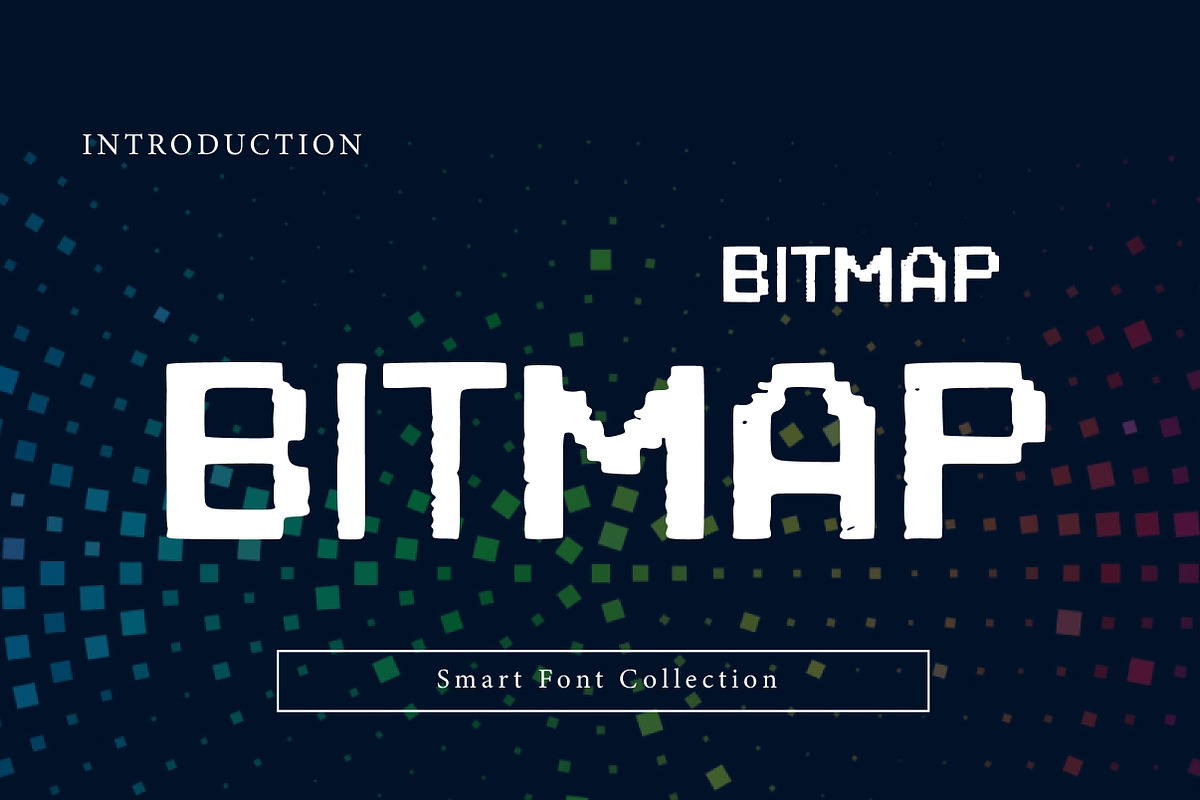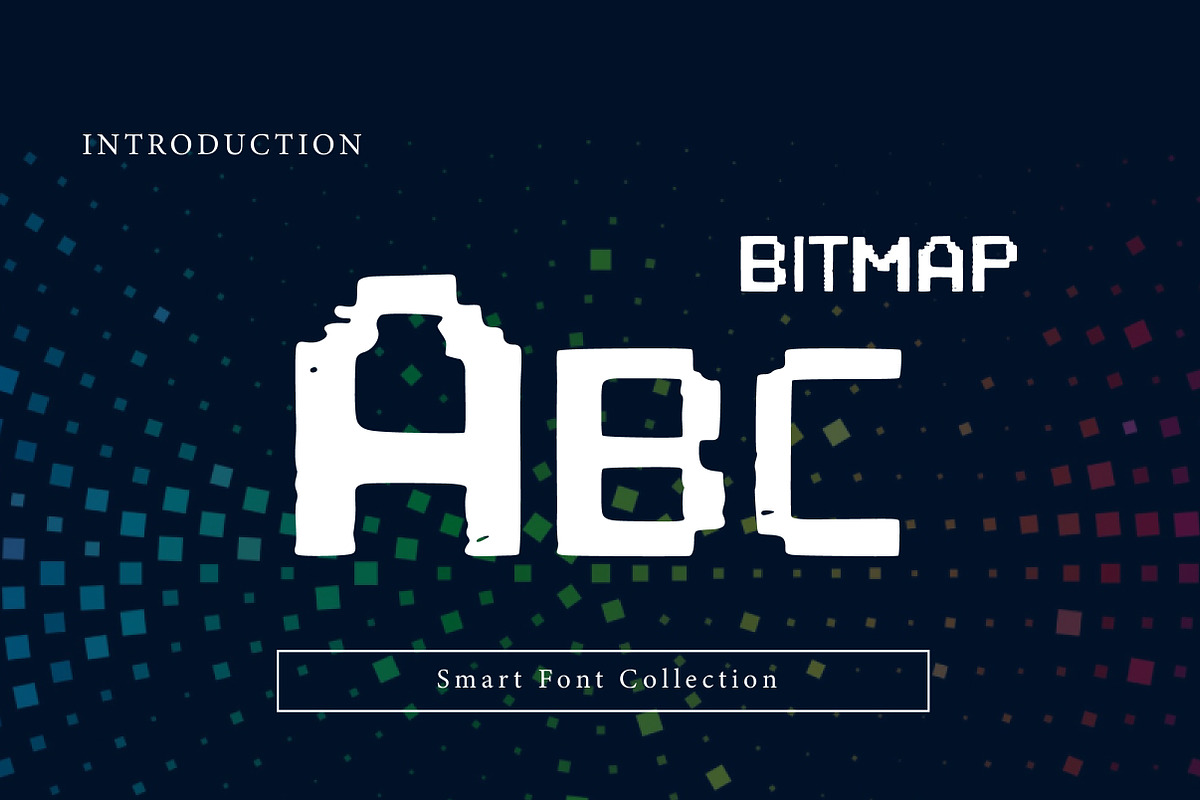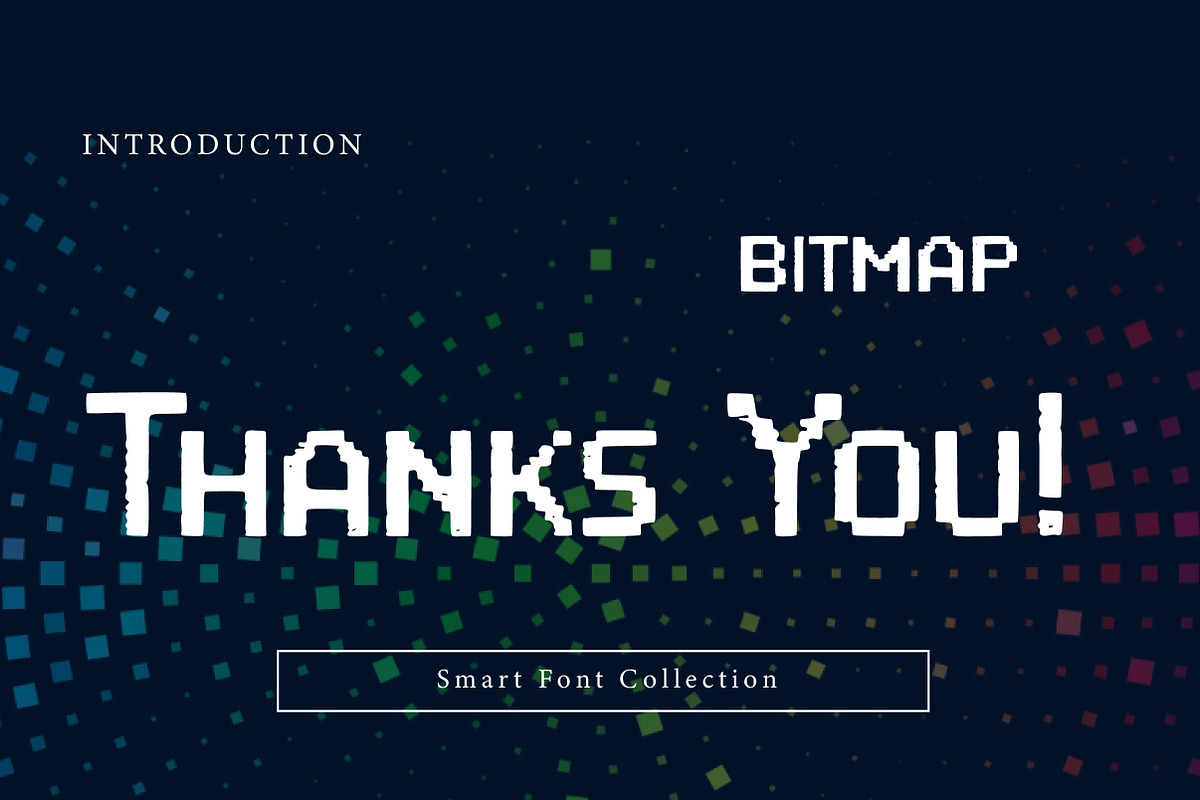
Bitmap
BITMAP is a bold, pixel-inspired retro display font with blocky shapes and a digital, low-resolution aesthetic. Influenced by classic video games, early computer screens, and 8-bit graphics, it’s perfect for gaming projects, posters, logos, tech branding, album covers, headlines, and retro-futuristic designs. BITMAP delivers a nostalgic, tech-driven character with strong visual impact.